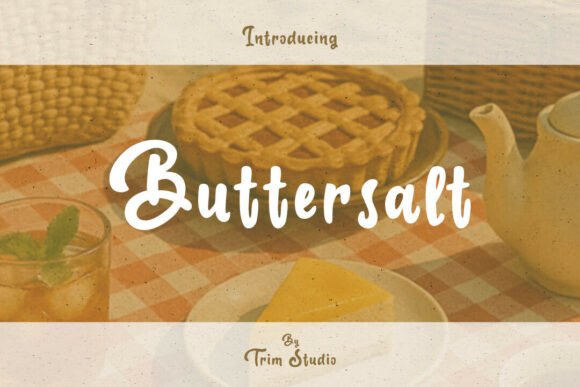
Introducing Buttersalt Font: The Playful Script Font for Creative Designs
Are you looking for a font that can add a touch of whimsy and charm to your designs? Look no further than Buttersalt, a playful script font that blends smooth, flowing curves with delightfully quirky details. With its elegant yet casual style, Buttersalt strikes the perfect balance between charm and readability, making it ideal for a wide range of creative projects.
The Personality of Buttersalt
Buttersalt has a warm and inviting personality that is sure to capture attention and delight your audience. Its friendly and expressive letterforms add a cheerful, artistic flair to any design, making it perfect for creative headlines, event invitations, greeting cards, logos, and branding that calls for a whimsical, handcrafted touch.
Key Features of Buttersalt Font
- Smooth, flowing curves: Buttersalt’s smooth, flowing curves give it a elegant and sophisticated feel, while also making it highly readable.
- Quirky details: The font’s delightfully quirky details add a touch of whimsy and playfulness, making it perfect for creative projects that need a little extra personality.
- Elegant yet casual style: Buttersalt’s elegant yet casual style strikes the perfect balance between charm and readability, making it ideal for a wide range of design applications.
- Handcrafted feel: Buttersalt’s handcrafted feel makes it perfect for designs that require a personal, human touch.
Use Cases for Buttersalt Font
Buttersalt is a versatile font that can be used for a wide range of design applications, including:
- Creative headlines: Buttersalt’s playful and attention-grabbing style makes it perfect for creative headlines that need to stand out.
- Event invitations: The font’s elegant yet casual style makes it ideal for event invitations that need to convey a sense of sophistication and whimsy.
- Greeting cards: Buttersalt’s friendly and expressive letterforms make it perfect for greeting cards that need to convey a personal, heartfelt message.
- Logos and branding: The font’s handcrafted feel and whimsical style make it ideal for logos and branding that require a unique and memorable identity.
Why Choose Buttersalt Font?
So why choose Buttersalt font for your next design project? Here are just a few reasons:
- Unique and memorable: Buttersalt’s playful and whimsical style makes it a unique and memorable font that will help your design stand out.
- Highly readable: The font’s smooth, flowing curves and clear letterforms make it highly readable, even at small sizes.
- Versatile: Buttersalt can be used for a wide range of design applications, from creative headlines to logos and branding.
Tips for Using Buttersalt Font
Here are a few tips for using Buttersalt font in your designs:
- Use it sparingly: Buttersalt’s playful and whimsical style can be overwhelming if used too much. Use it sparingly to add a touch of personality to your design.
- Pair it with a neutral font: Pair Buttersalt with a neutral font to create a balanced and harmonious design.
- Experiment with different sizes and colors: Buttersalt looks great in a variety of sizes and colors. Experiment to find the look that works best for your design.
In conclusion, Buttersalt font is a playful script font that is perfect for designers and crafters who want to add a touch of whimsy and charm to their designs. With its smooth, flowing curves, delightfully quirky details, and elegant yet casual style, Buttersalt is ideal for a wide range of creative projects. Whether you’re designing a creative headline, event invitation, greeting card, logo, or brand identity, Buttersalt is a great choice. So why not give it a try and see how it can add a little extra sweetness and style to your design?